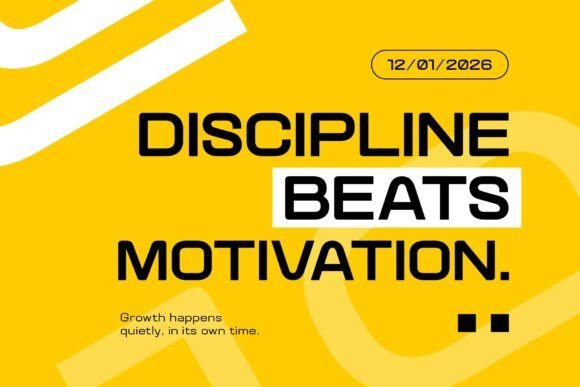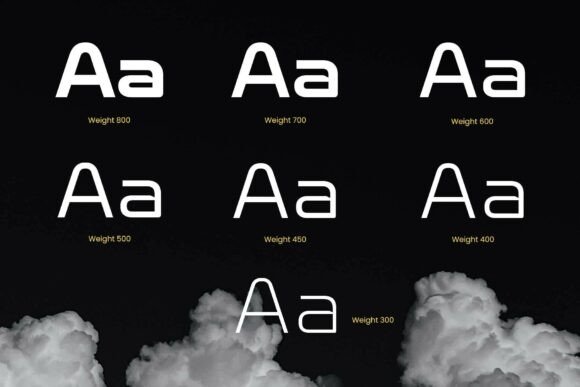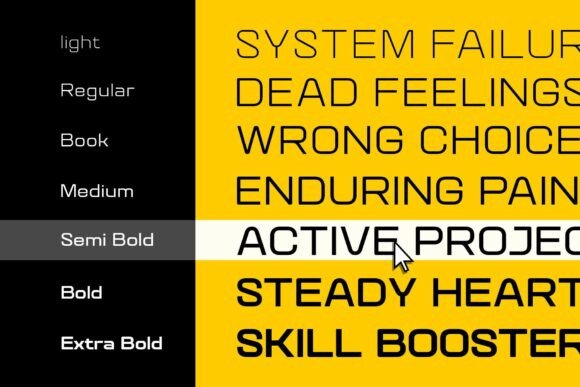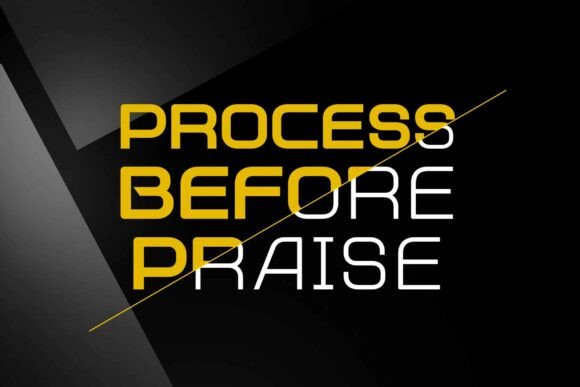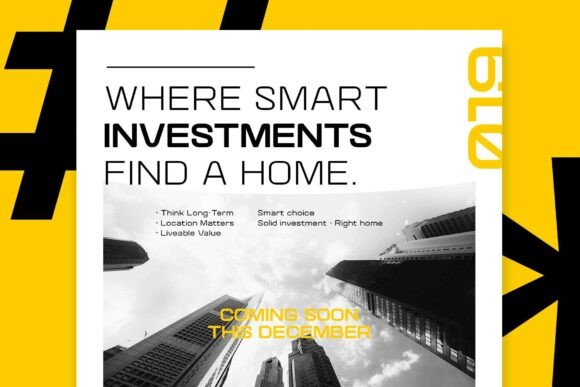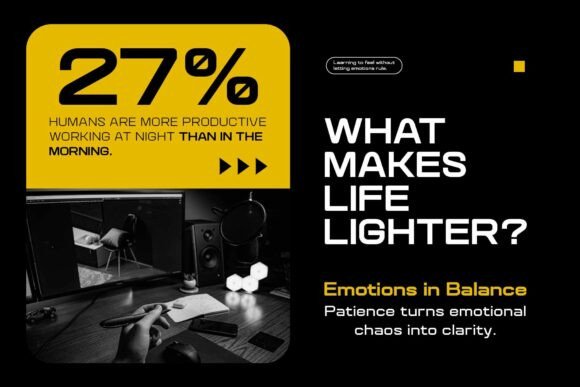
Introduction to Quantix Font
Enter Quantix Font, a cutting-edge sans-serif typeface designed to transport your designs into the future. With its sleek, wide, and squarish proportions, this versatile font is the perfect companion for designers looking to create high-quality, attention-grabbing visuals.
Whether you’re working on a logo, branding, signage, or website, Quantix Font’s 7 weights offer a range of styles to suit your needs. From elegant and refined to strong and impactful, each weight delivers its own unique character, making it an invaluable asset for designers seeking to take their creative projects to the next level.
Honest Review: Quantix Font
As a designer, I’ve had the chance to try out the Quantix Font, and I must say it’s been an interesting experience. At first glance, the font seems to be a high-quality design resource perfect for creative projects that require a modern and sleek aesthetic.
One of the things that works well about the Quantix Font is its versatility. It comes with a range of styles and weights, making it suitable for various design applications, from headings to body text. The font also supports a transparent background, which is a great feature for designers who need to create visually appealing graphics.
- ✨ Versatile font with multiple styles and weights
- ✨ Supports transparent background
- ⚠️ Limited font families, which may not be ideal for projects that require a wide range of fonts
- ⚠️ Some characters may not be as legible as others, especially at smaller font sizes
Overall, I would say that the Quantix Font is a decent design resource, but it may not be the best fit for every project. It’s perfect for designers who need a high-quality font for a specific creative project, but it may not be ideal for those who need a wide range of fonts or more legible characters.
Tips for Getting the Most Out of Quantix Font
To get the most out of the Quantix Font, use it on a transparent background to achieve a clean and modern design. You can also pair it with other fonts to create a unique and creative look for your project.
The Quantix Font is ideal for various creative projects such as logos, business cards, brochures, and social media graphics. Its high-quality design makes it a popular choice for designers and non-designers alike.